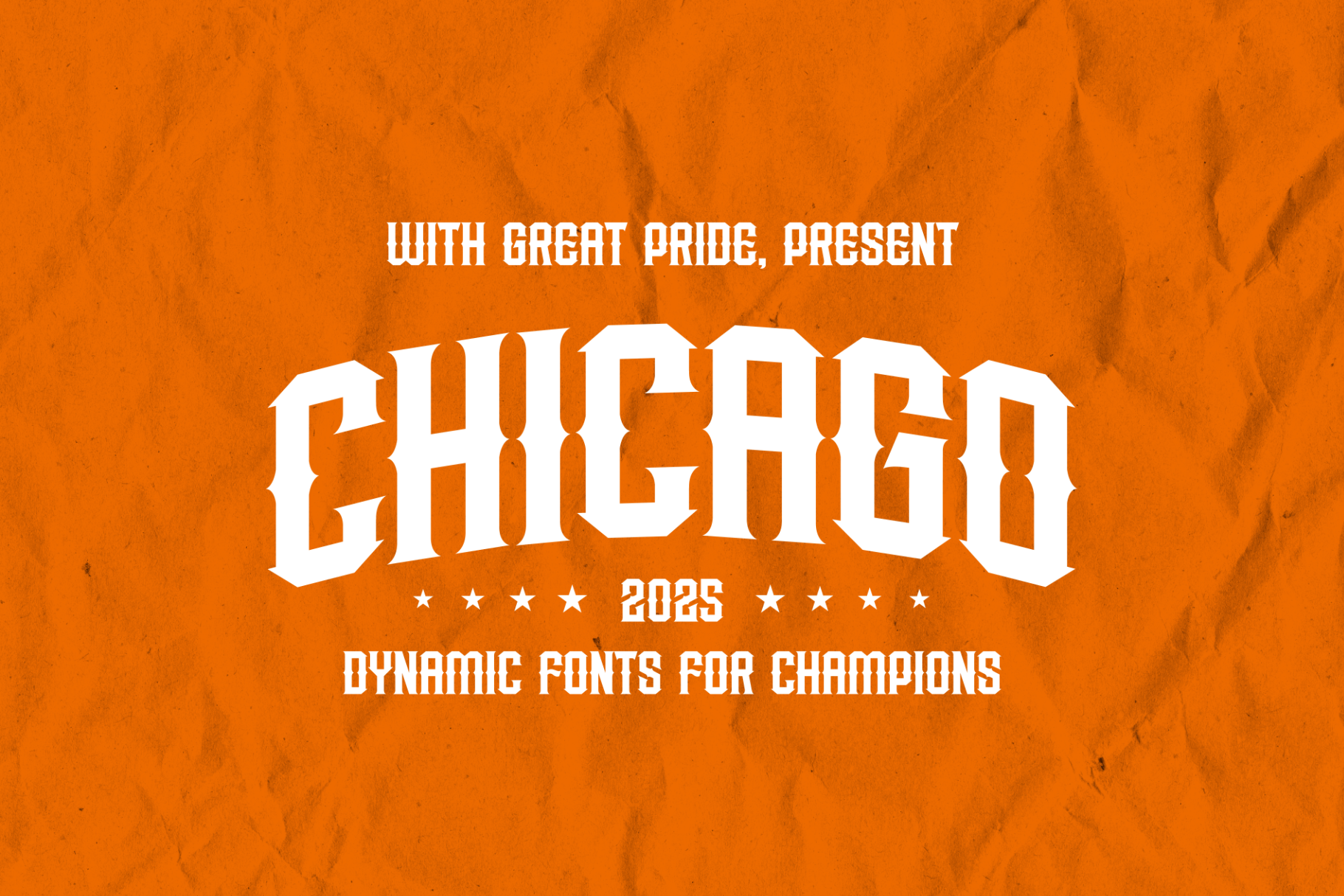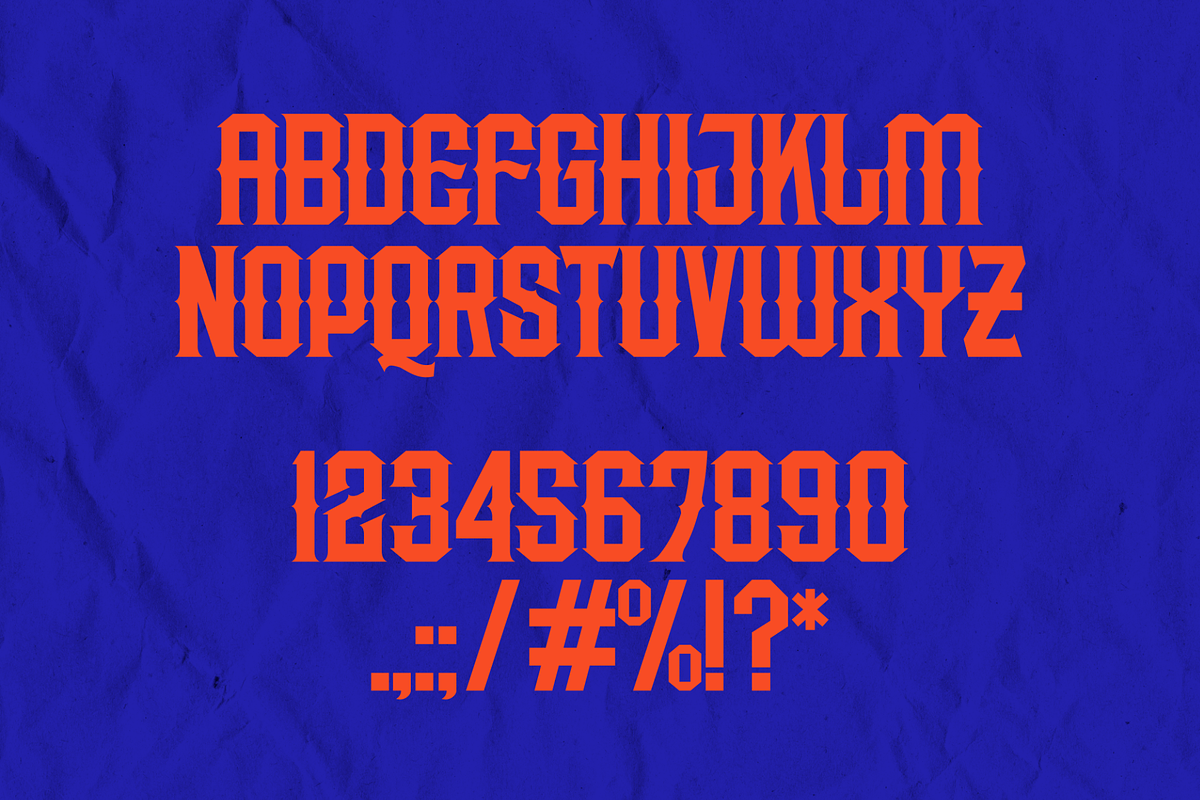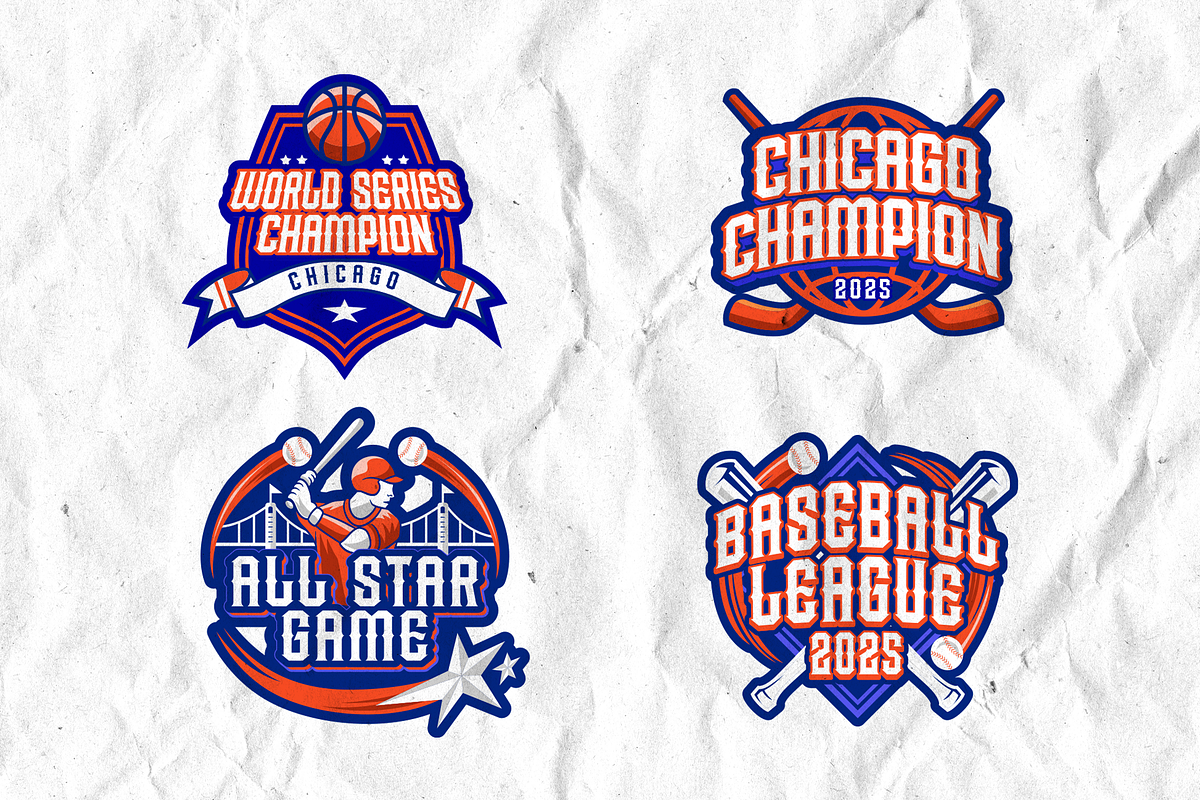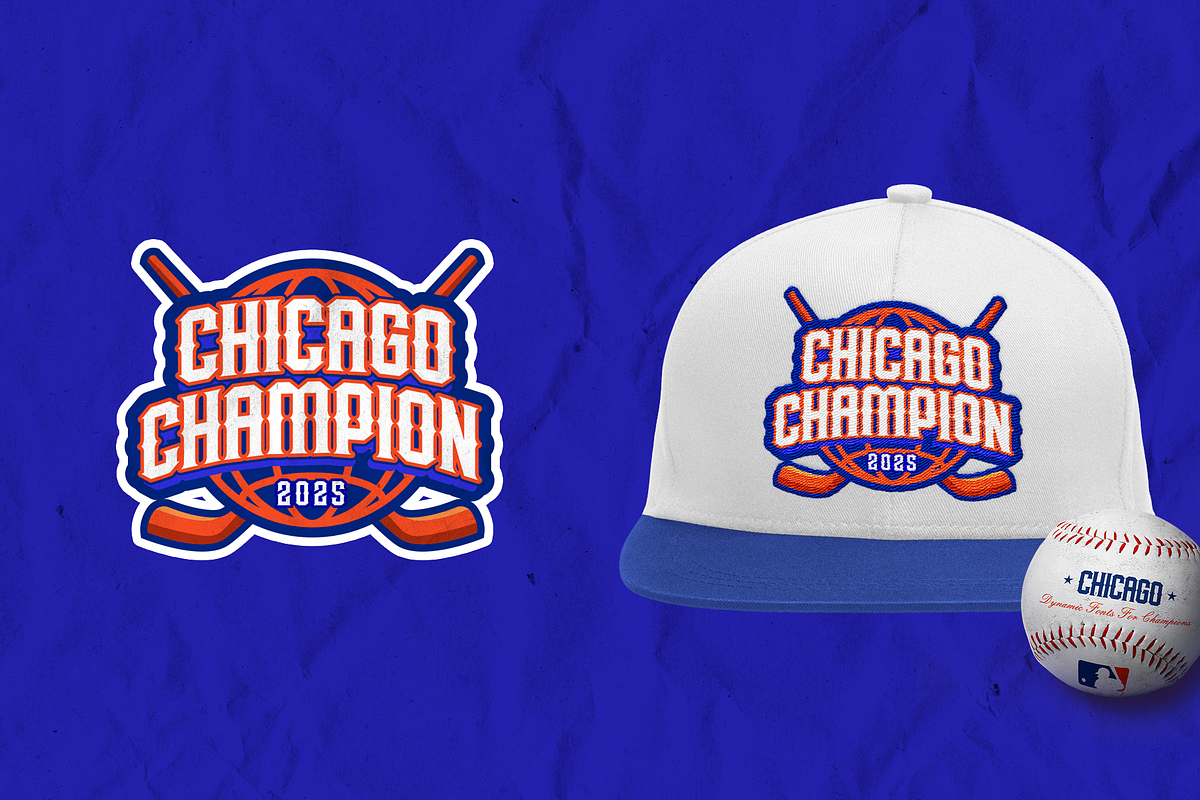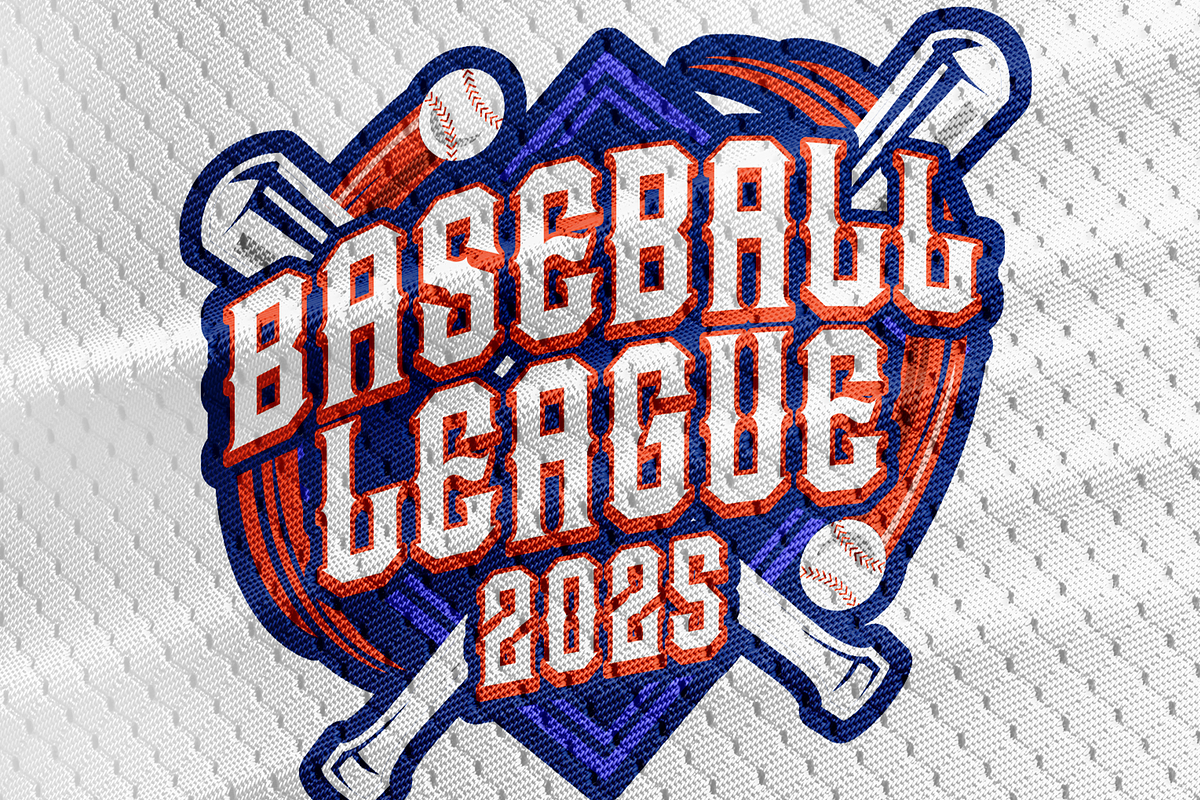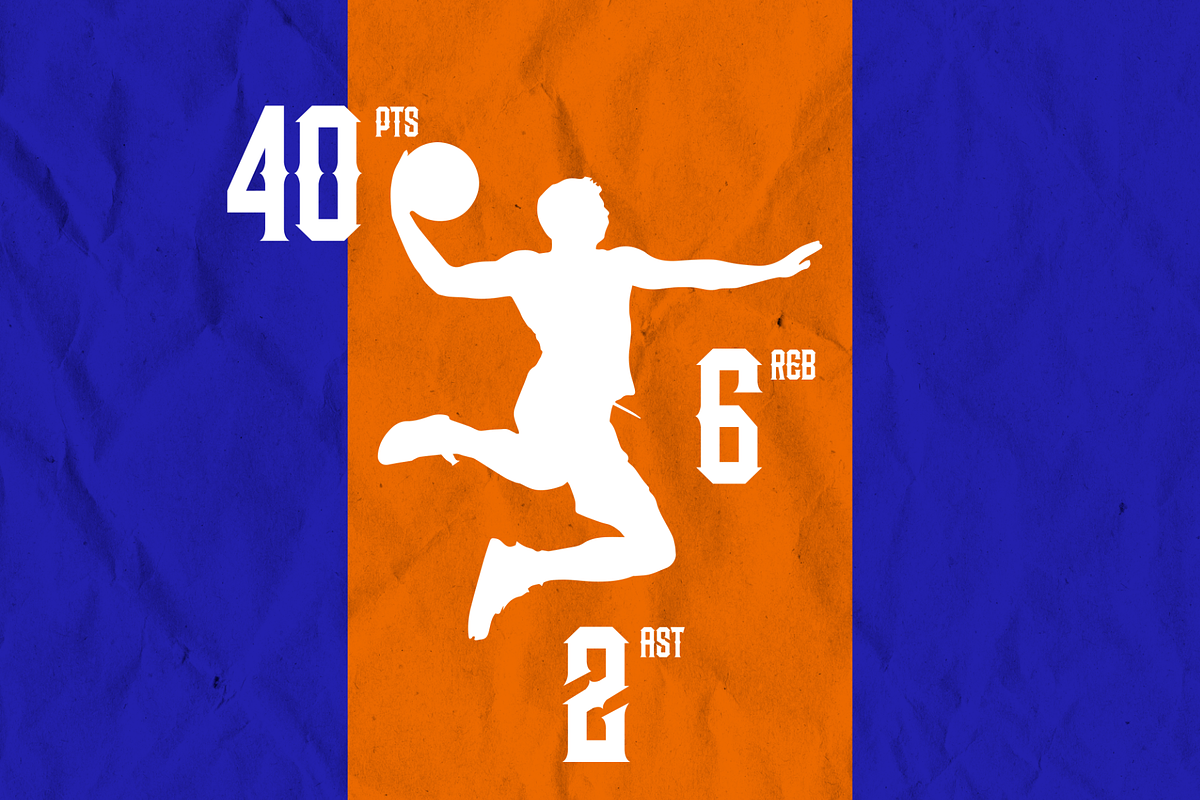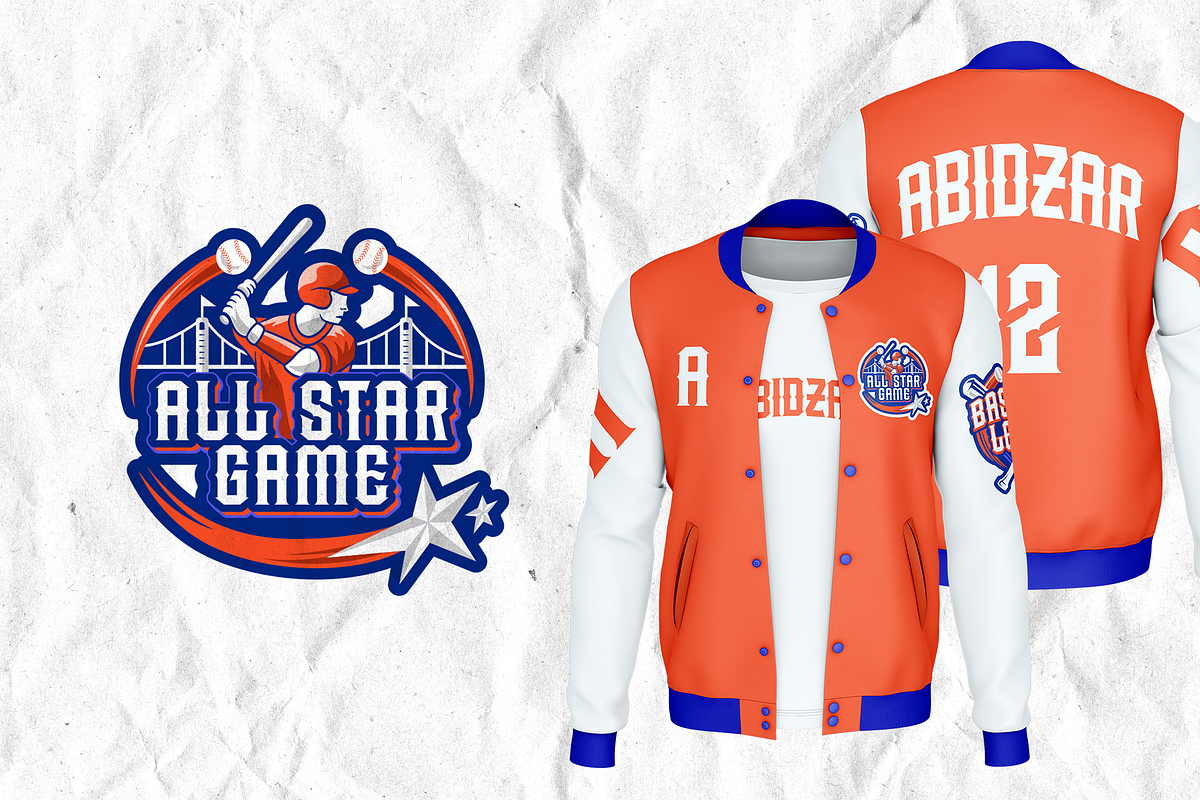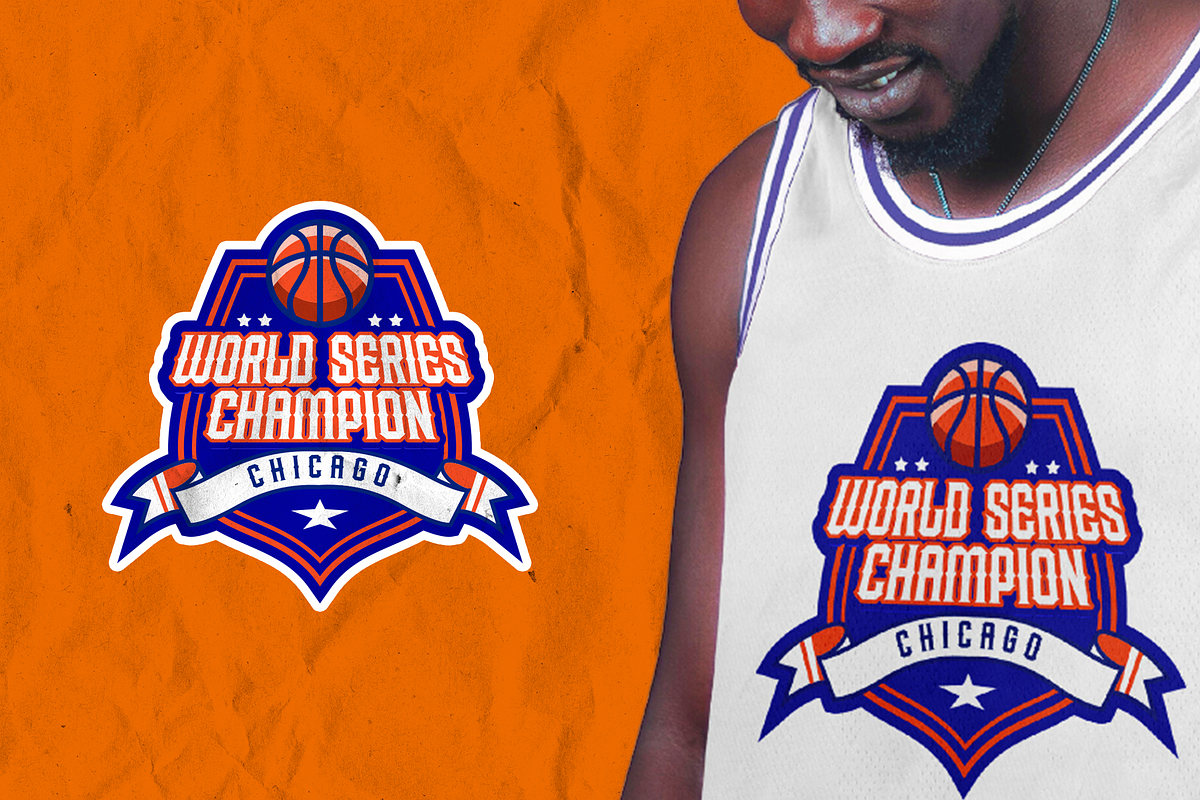
Chicago Display Sports Font
The "Chicago" font combines a bold retro look, optimal readability, and strong character, making it a dynamic choice for branding that aims to convey a champion spirit, Chicago Sports font is a perfect fit for all your branding needs, whether it’s for jerseys, hats, logotypes, posters, or any other promotional materials.